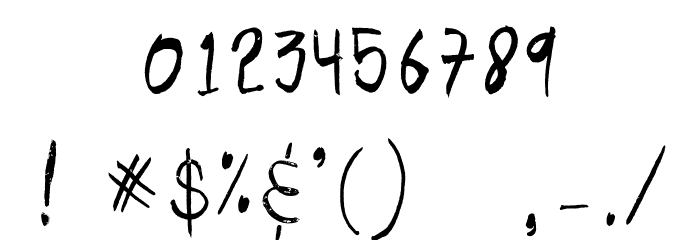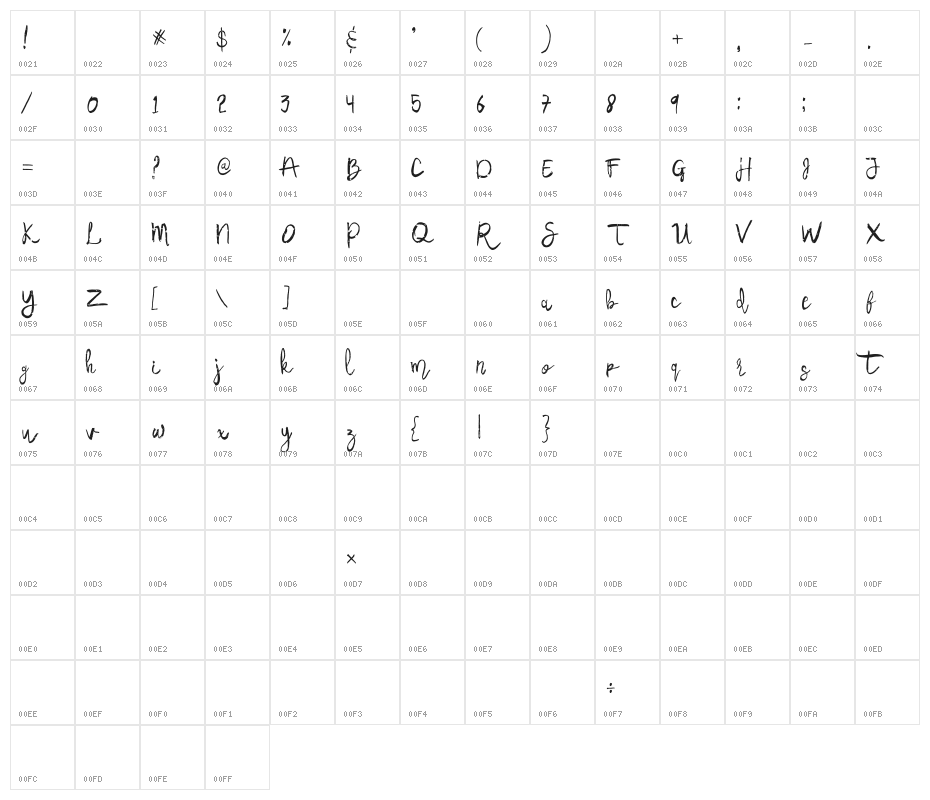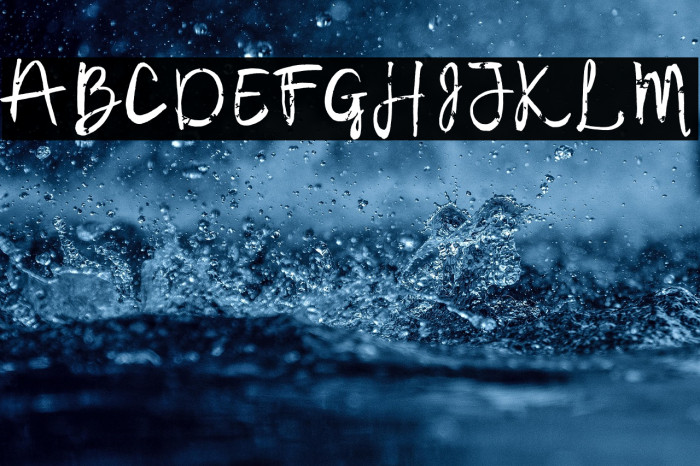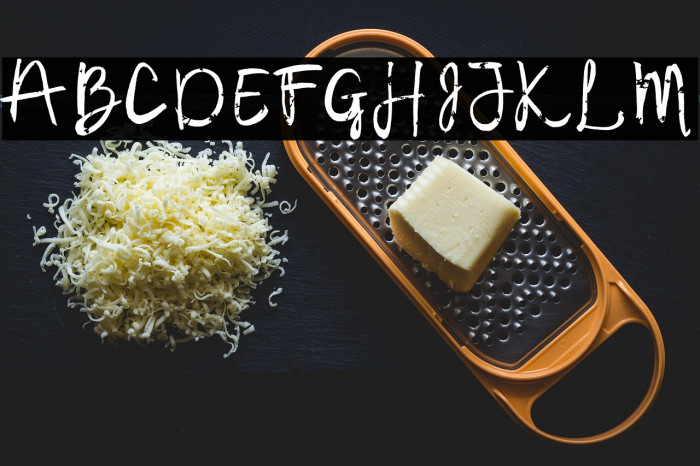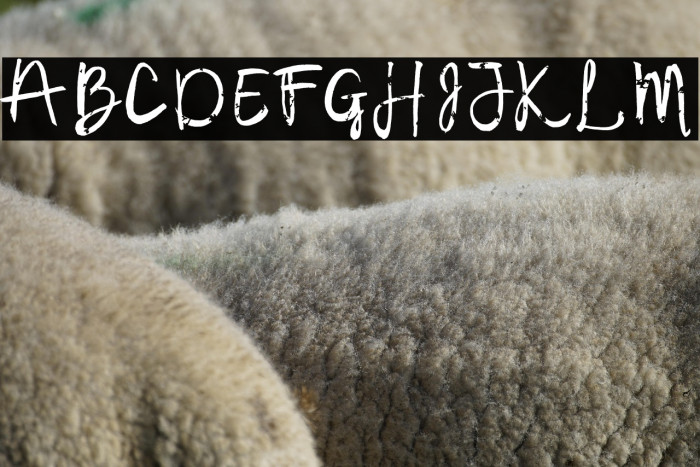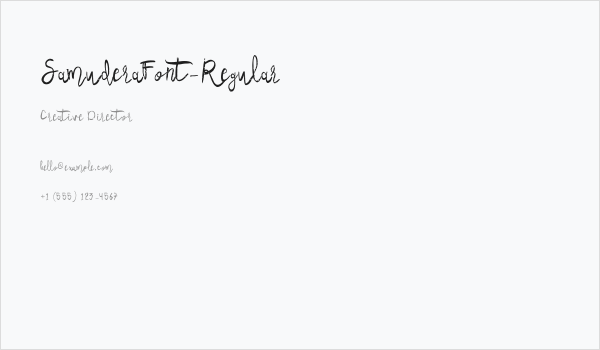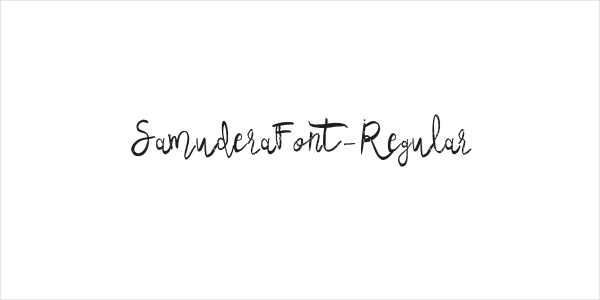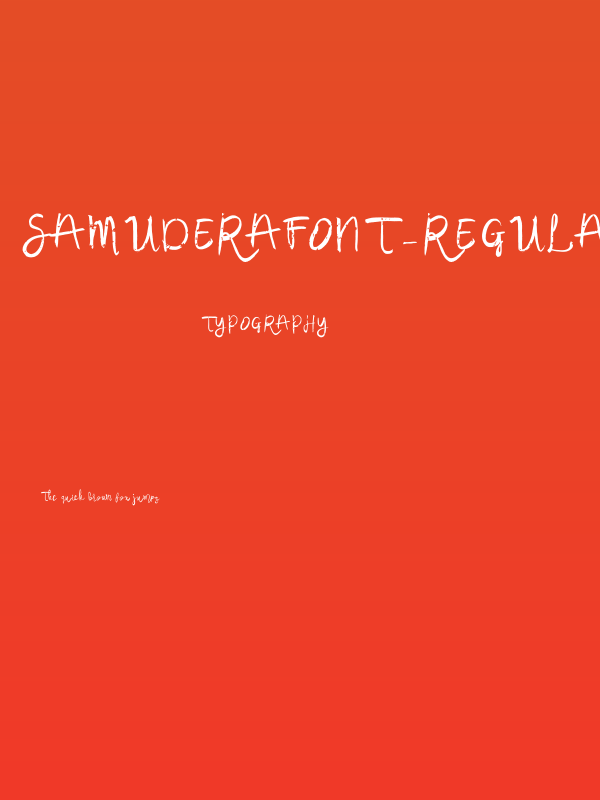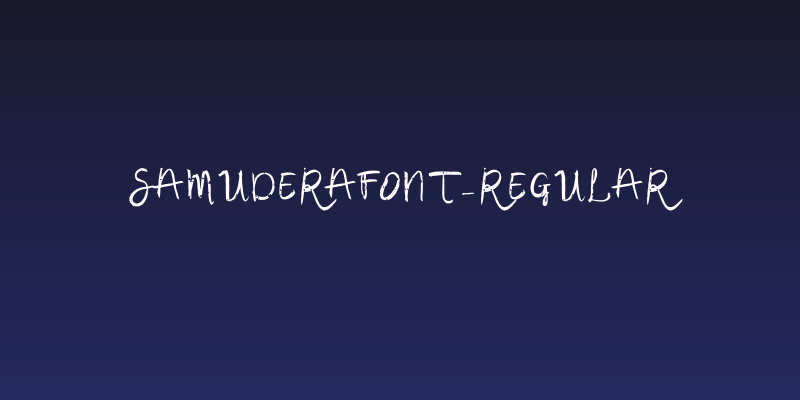
SamuderaFont-Regular Font
SamuderaFont-Regular Description
This font features a dynamic and expressive style with a hand-painted appearance. The letters have an uneven, textured look, reminiscent of brush strokes, giving it a lively and artistic feel. The uppercase letters are bold and slightly irregular, while the lowercase letters maintain a fluid, cursive style. Numbers and special characters follow the same artistic theme, making the font suitable for creative and informal projects. The overall design is playful yet sophisticated, making it versatile for various design needs.
| Proposed Projects | Ideal for artistic projects, branding, posters, invitations, and any design requiring a creative, hand-crafted touch. |